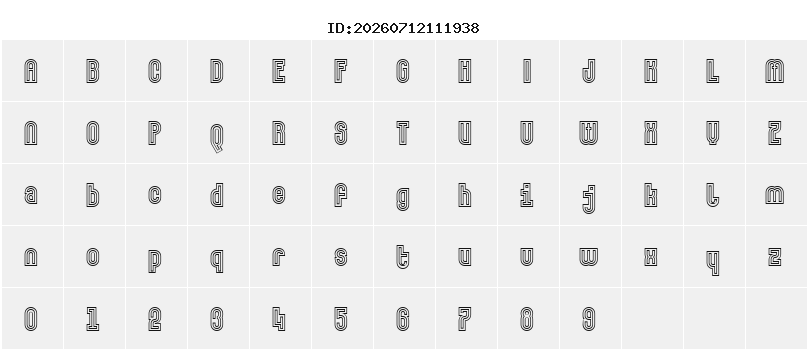
• Font Name: MakushkaQuadriga
• Font ID: PeterWiegel: MakushkaQuadriga: 2010
• Full Font Name: MakushkaQuadriga
• Version: Version 1.000 2010 initial release
• PostScript Name: MakushkaQuadriga
• Designer: Peter Wiegel
• Manufacturer: Peter Wiegel
About MakushkaQuadriga.ttf
MakushkaQuadriga.ttf is a modern, elegant sans-serif font designed for ultimate readability and visual harmony. Perfect for branding, headlines, web design, and print materials.